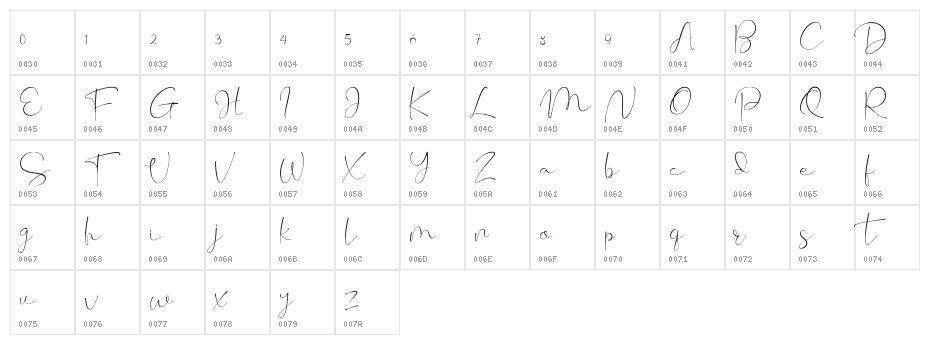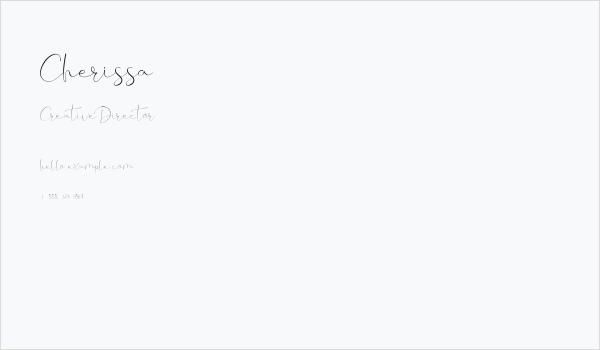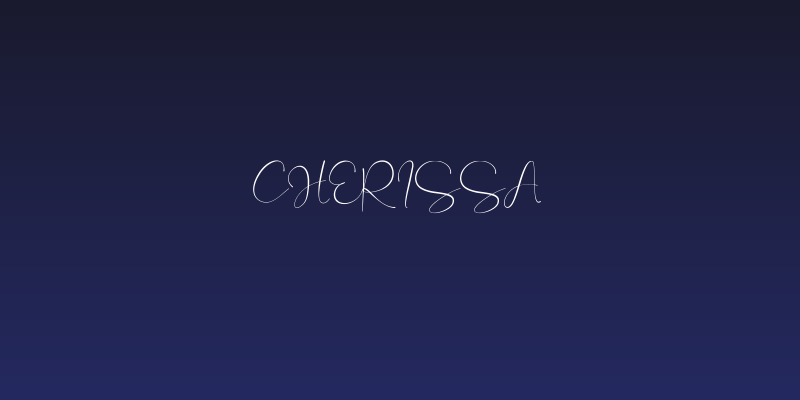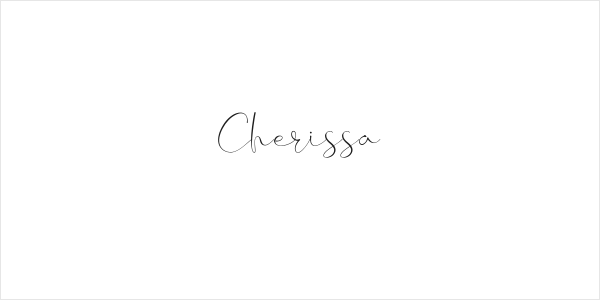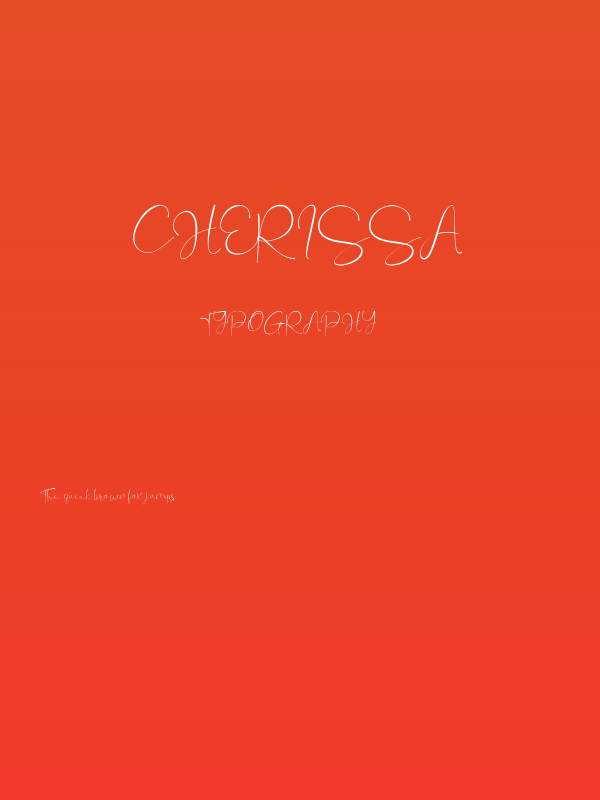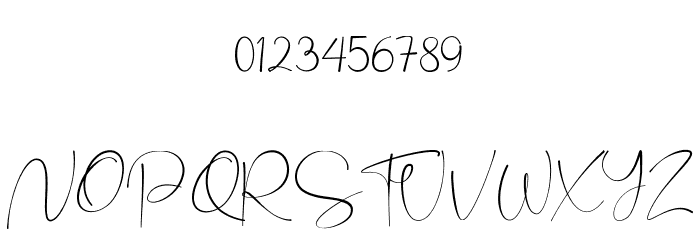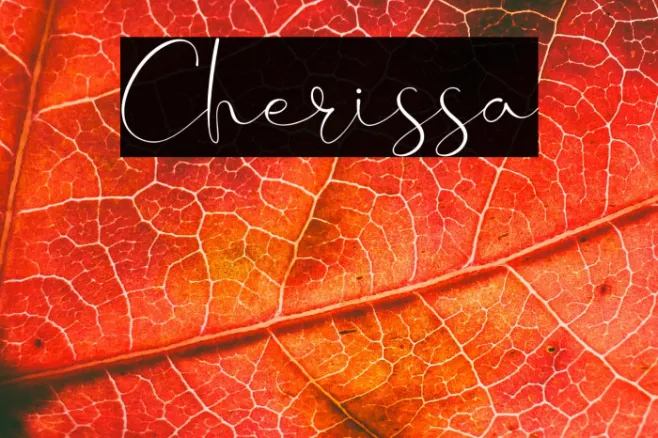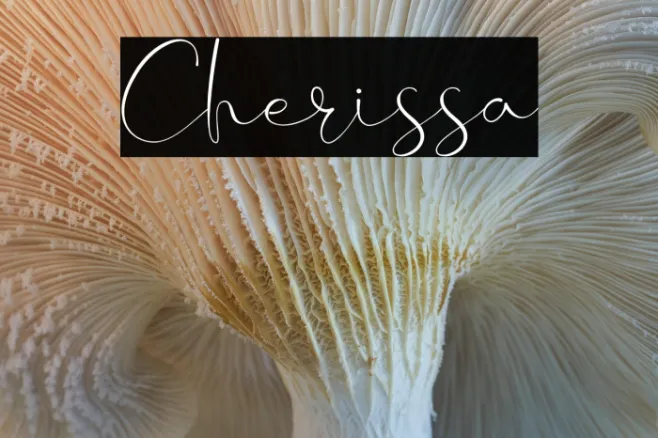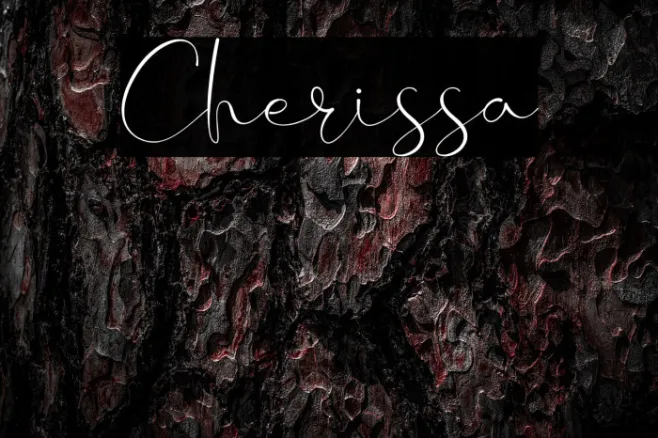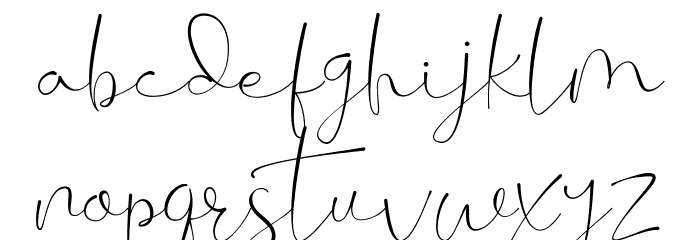
Cherissa Font
Cherissa Description
This font features a delicate and elegant script style, characterized by its flowing, cursive letterforms. The strokes are thin and graceful, with a slight variation in thickness that adds a touch of sophistication. The uppercase letters are ornate, often extending with loops and swirls, while the lowercase letters maintain a more consistent baseline, enhancing readability. The numerals are styled to match the overall script aesthetic, maintaining the fluidity and elegance of the alphabet. This font exudes a sense of refinement and is well-suited for applications where a touch of elegance and personal flair is desired.